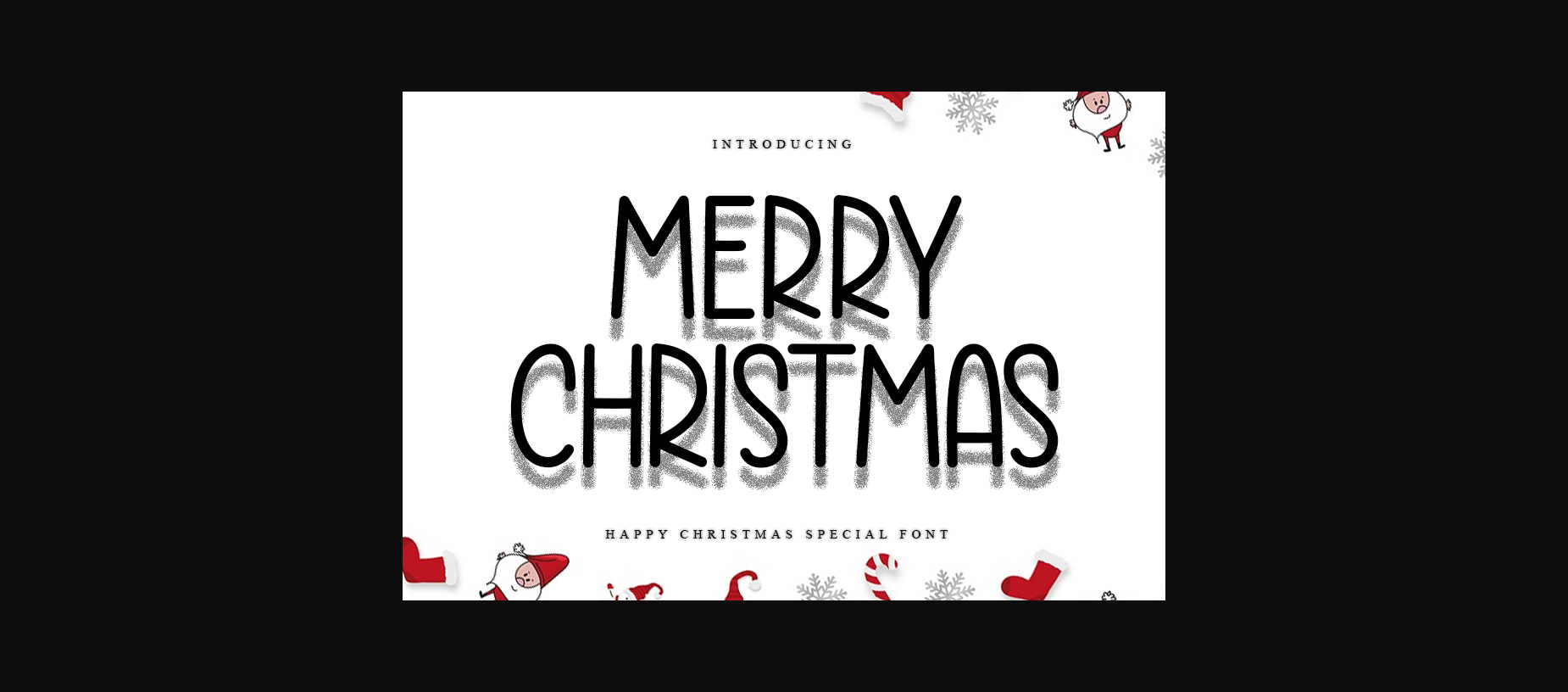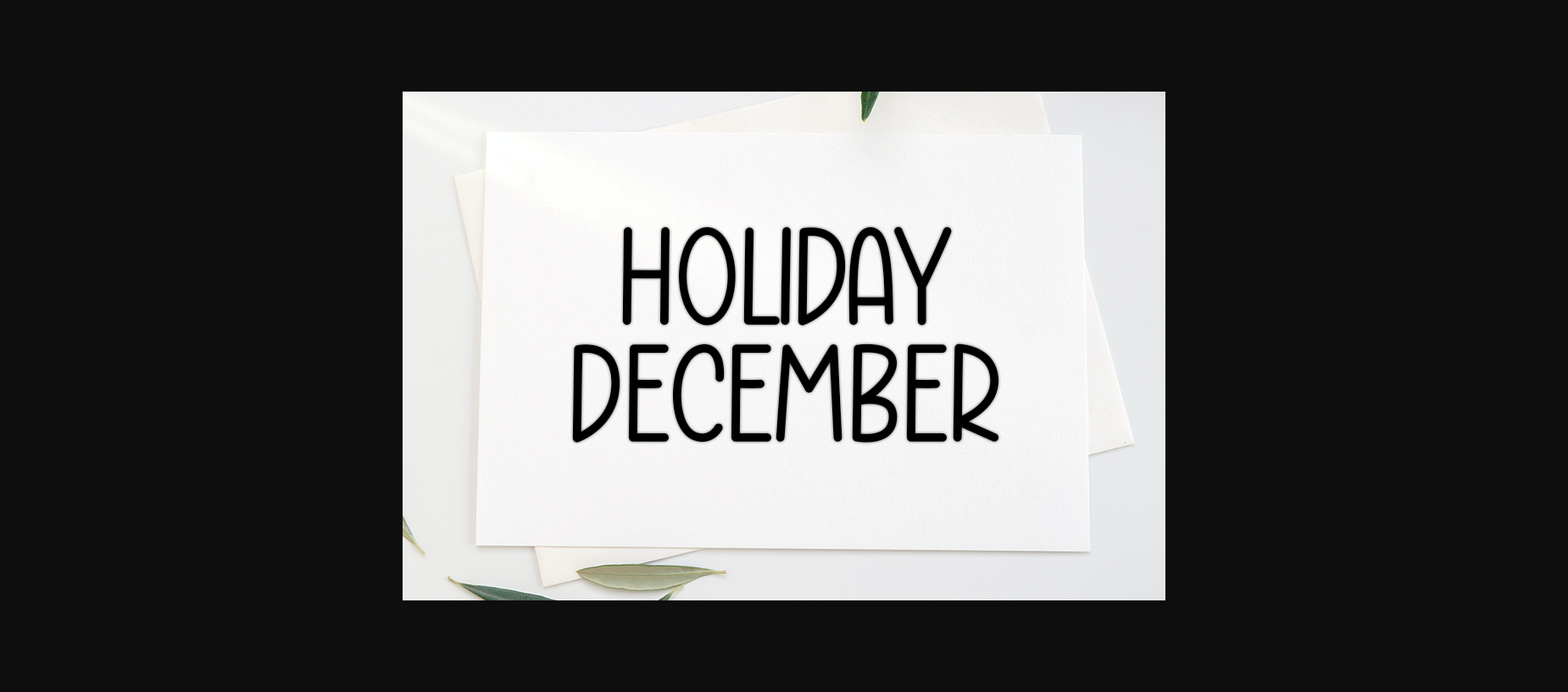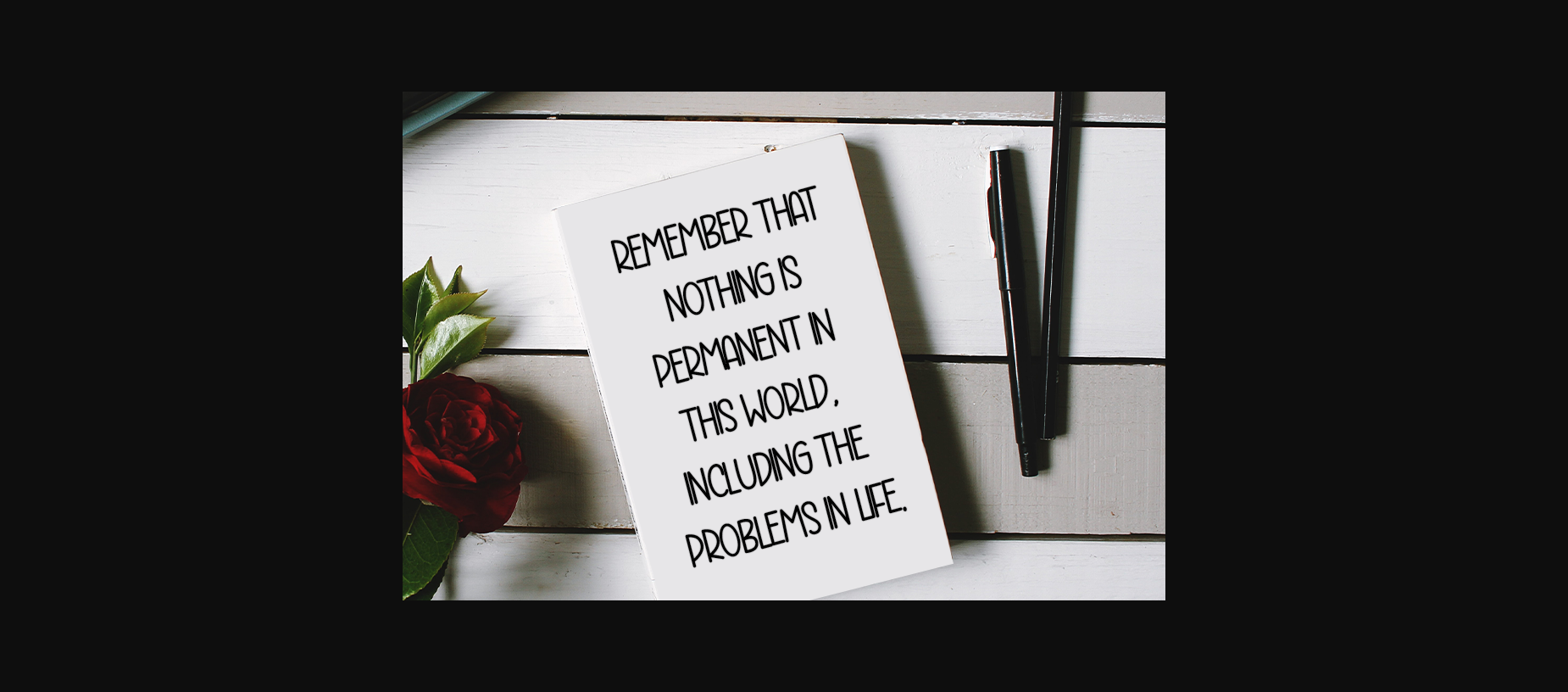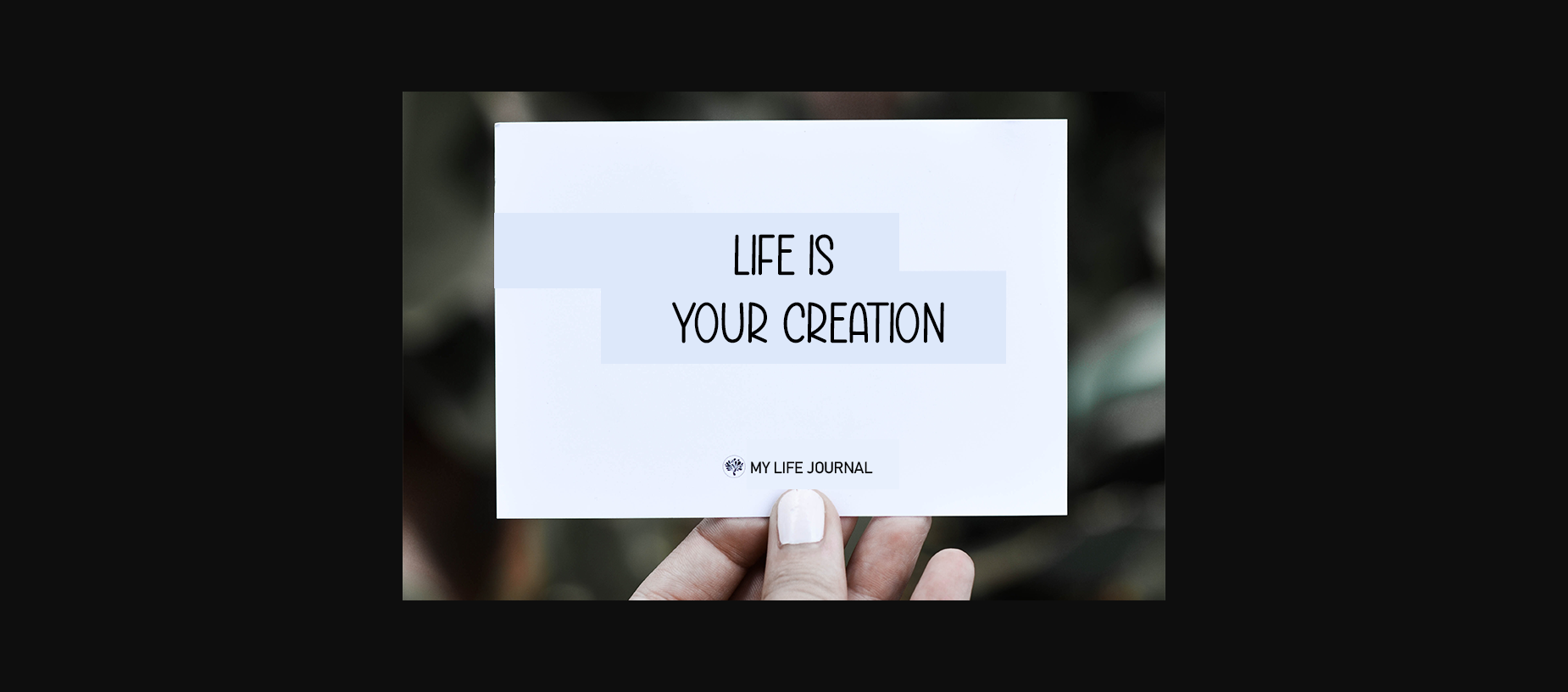
Merry Christmas Font
About Merry Christmas Font
Merry Christmas is a cool and modern sans serif font. Whether you’re using it for crafts, digital design, presentations, or making greeting cards, this font has the potential to become your favorite go-to font, no matter the occasion.